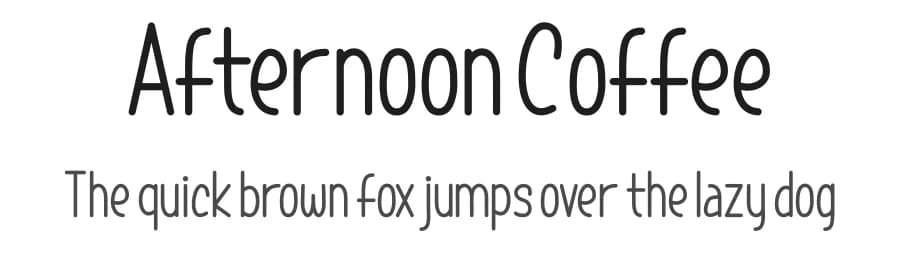
About Afternoon Coffee Font
Introducing
Afternoon Coffee
A Rounded Condensed San Serif Font. Simple, modern and versatile font for many kind of design,
such as logo, magazine, website and etc.
Afternoon Coffee Font